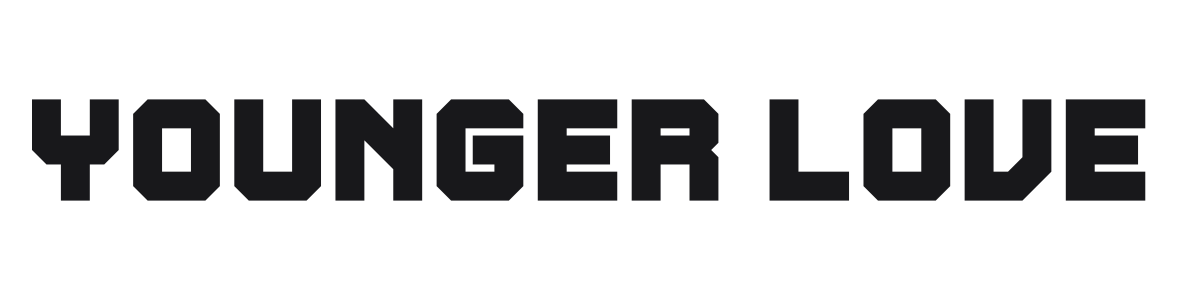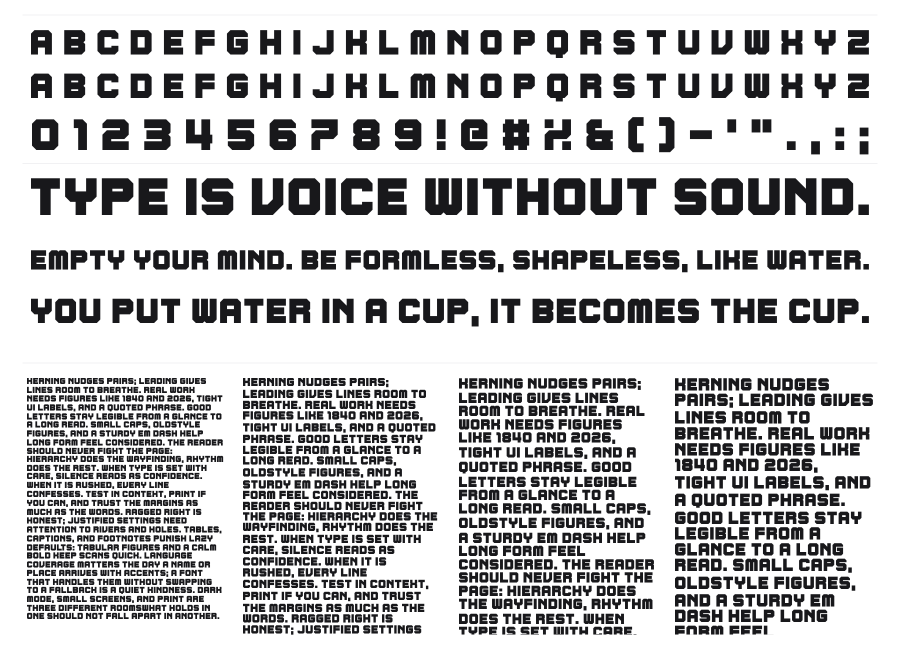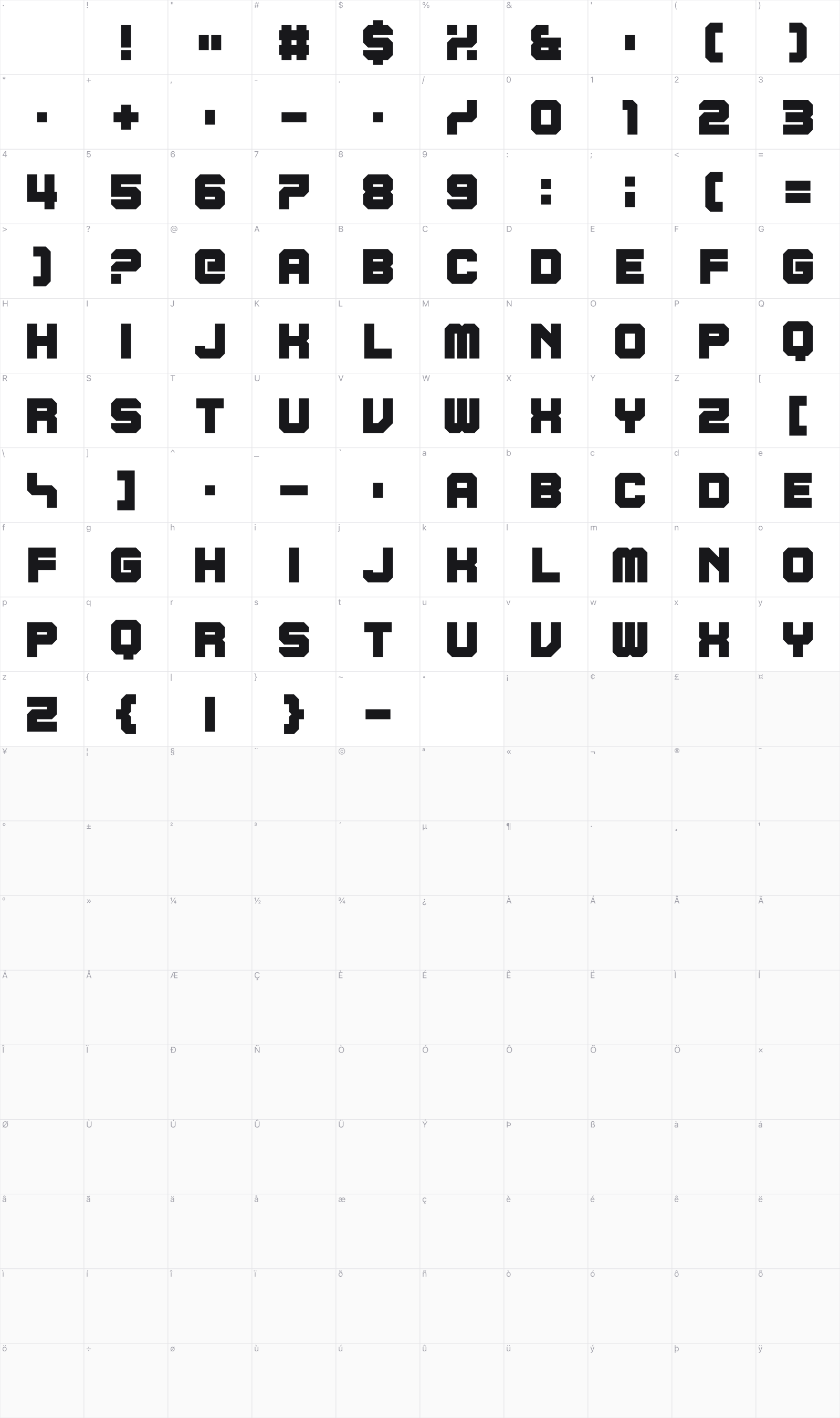
Younger Love
Younger Love is a heavy square sans-serif built on a rigid geometric grid with sharp angular notches at stroke terminals. The bold, condensed proportions and uniform stroke weight give it a raw, digital-display energy reminiscent of early video game lettering. It commands attention at large sizes in gaming, sports, or streetwear contexts.